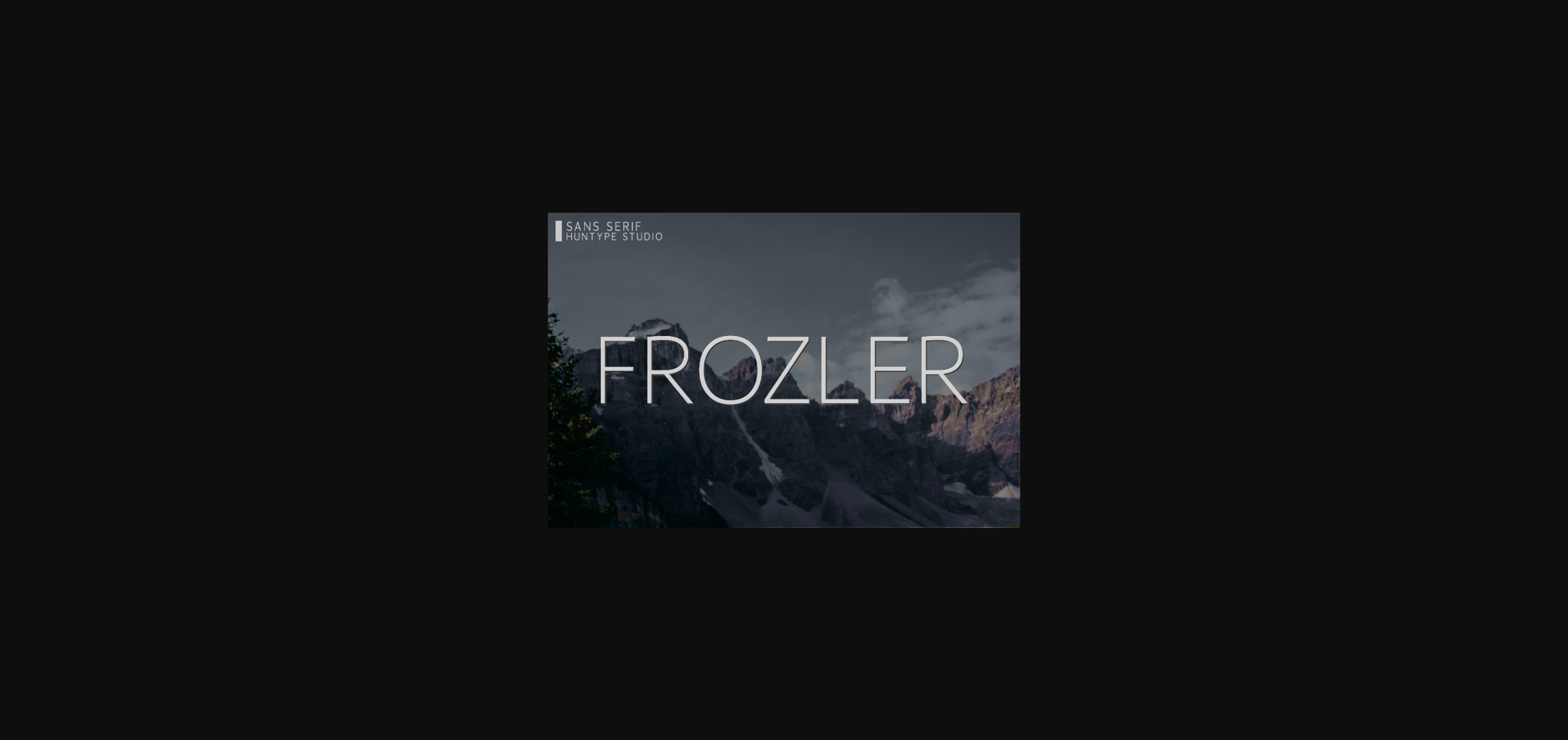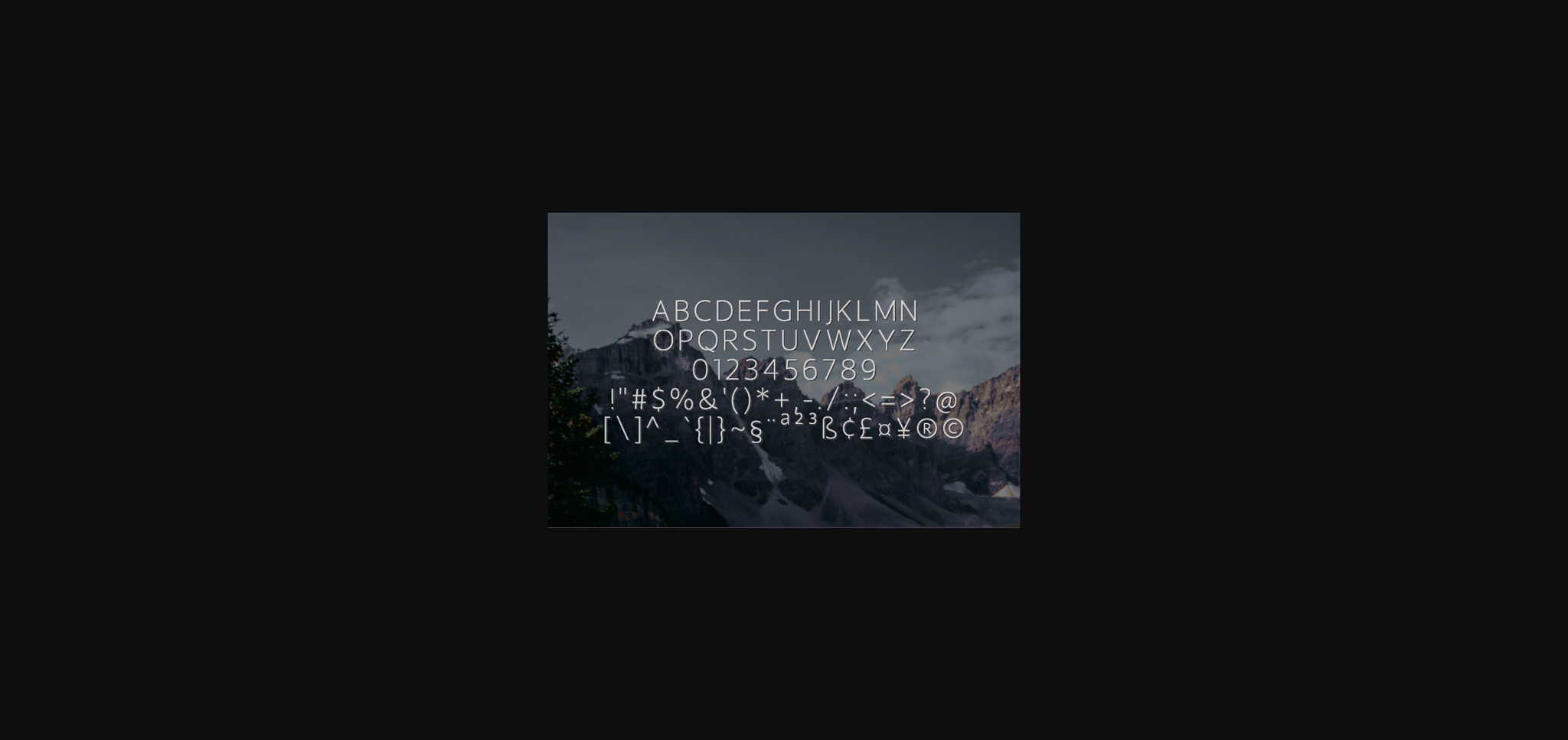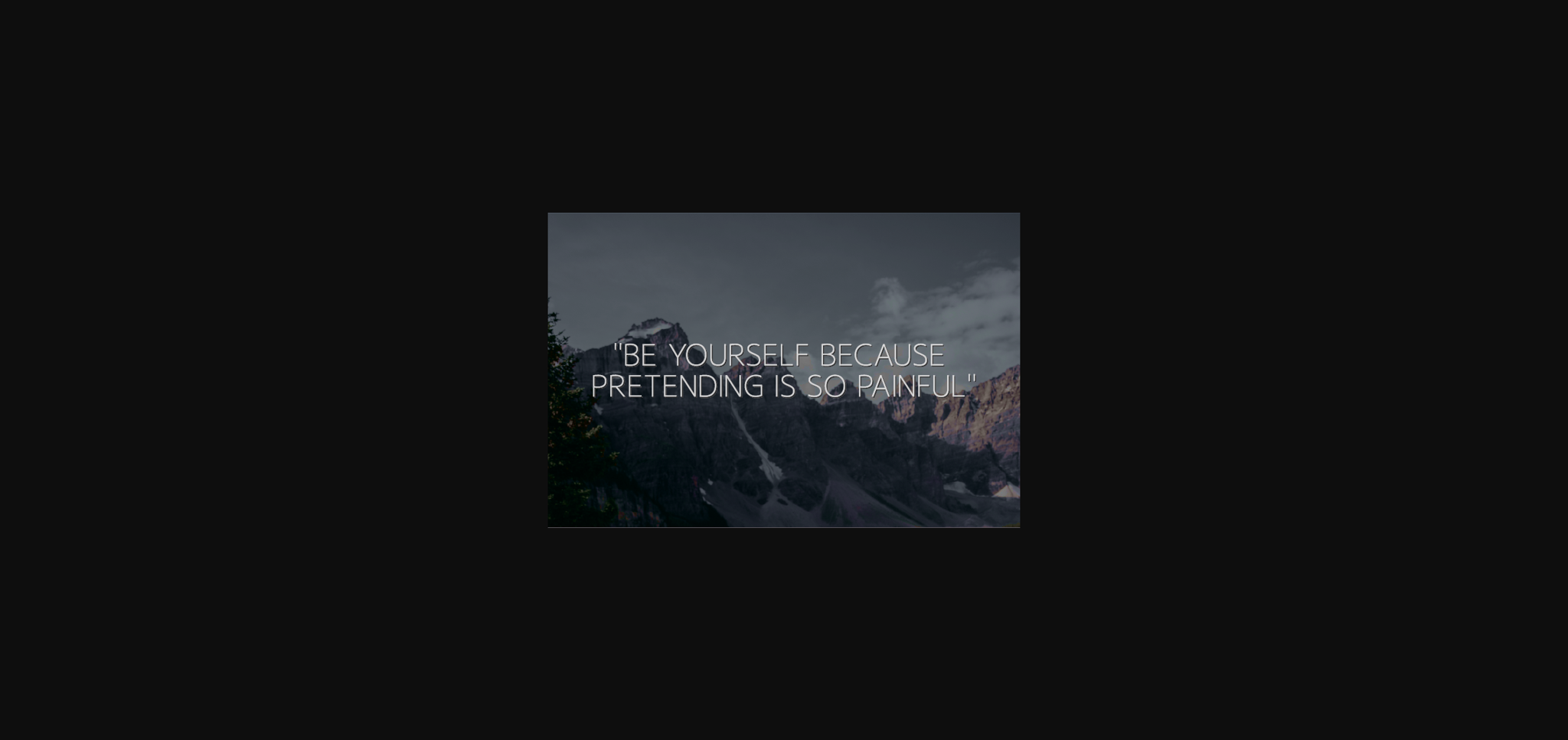
About Frozler Font
Frozler is a simple and thin lettered sans serif font. It can easily be matched to an incredibly large set of projects, so add it to your creative ideas and notice how it makes them stand out!